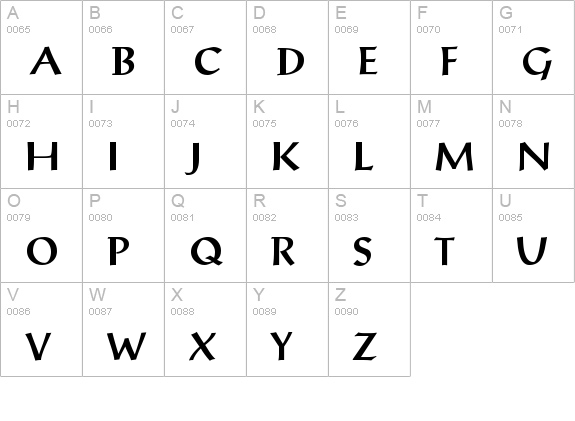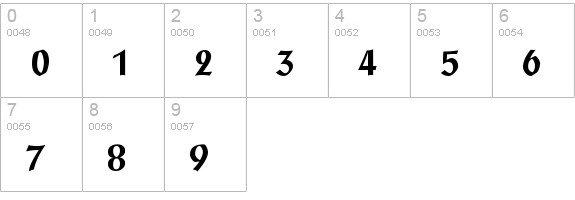
P790-Roman-Bold Font Details
P790-Roman-Bold is a strong, high-contrast variant in the P790 typeface family \xE2\x80\x94 well suited to headlines, attention-grabbing titles, and strong calls-to-action.
P790-Roman-Bold is a striking and versatile font that exudes strength and sophistication. With its bold and timeless design, this font is perfect for making a statement in headlines, titles, and logos. The clean lines and sharp edges of P790-Roman-Bold give it a modern and professional look that is sure to grab attention. Best of all, P790-Roman-Bold is available for free download at FontsMarket.com. This means you can easily access this high-quality font for your projects without any cost. Whether you're working on branding materials, print designs, or digital projects, P790-Roman-Bold is a valuable addition to your font collection. Download it today and elevate your designs with this exceptional typeface.